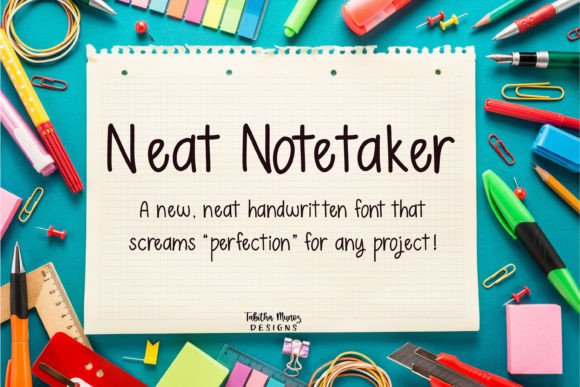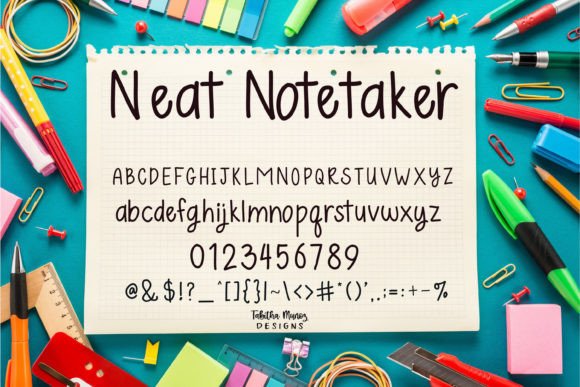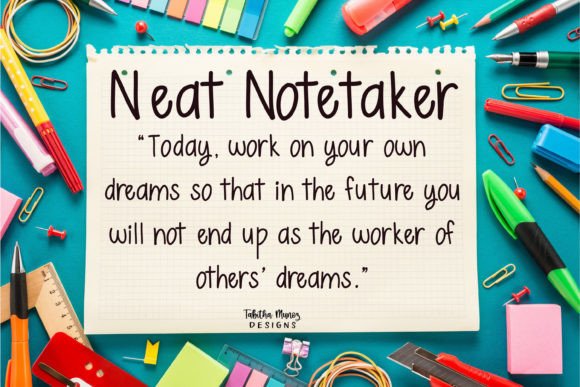
Neat Notetaker Font
About Neat Notetaker Font
**Neat Notetaker** is a charming and well-crafted handwritten font that adds a “neat” finish to any project you have in mind. This cute and tidy typeface is versatile and suitable for a wide range of applications, making it an excellent choice for crafts, digital design, presentations, greeting cards, and more. It has the potential to become your go-to font, no matter the occasion, thanks to its neat and versatile style.
One of the standout features of Neat Notetaker is its cute and tidy design. Each character is meticulously crafted to be neat and legible, making your text look clean and polished. This quality makes it a versatile choice for projects where you want to convey a sense of tidiness and organization.
Neat Notetaker’s versatility shines in various design contexts. It is well-suited for crafting greeting cards, where its neat and tidy appearance enhances the clarity and impact of your messages.
In digital design and presentations, Neat Notetaker adds a sense of professionalism and clarity to your content, ensuring that your information is easily readable and well-presented.
Craft projects benefit from the font’s clean and organized look, making it a valuable addition to your creative toolkit.
In summary, Neat Notetaker is a cute and neat handwritten font that brings a sense of tidiness and organization to your designs. Its versatility and tidy style make it a fantastic choice for various design projects, whether you’re creating greeting cards, digital content, presentations, or crafts. Embrace Neat Notetaker to add a polished and neat finish to your creative work, making it both visually appealing and highly readable.